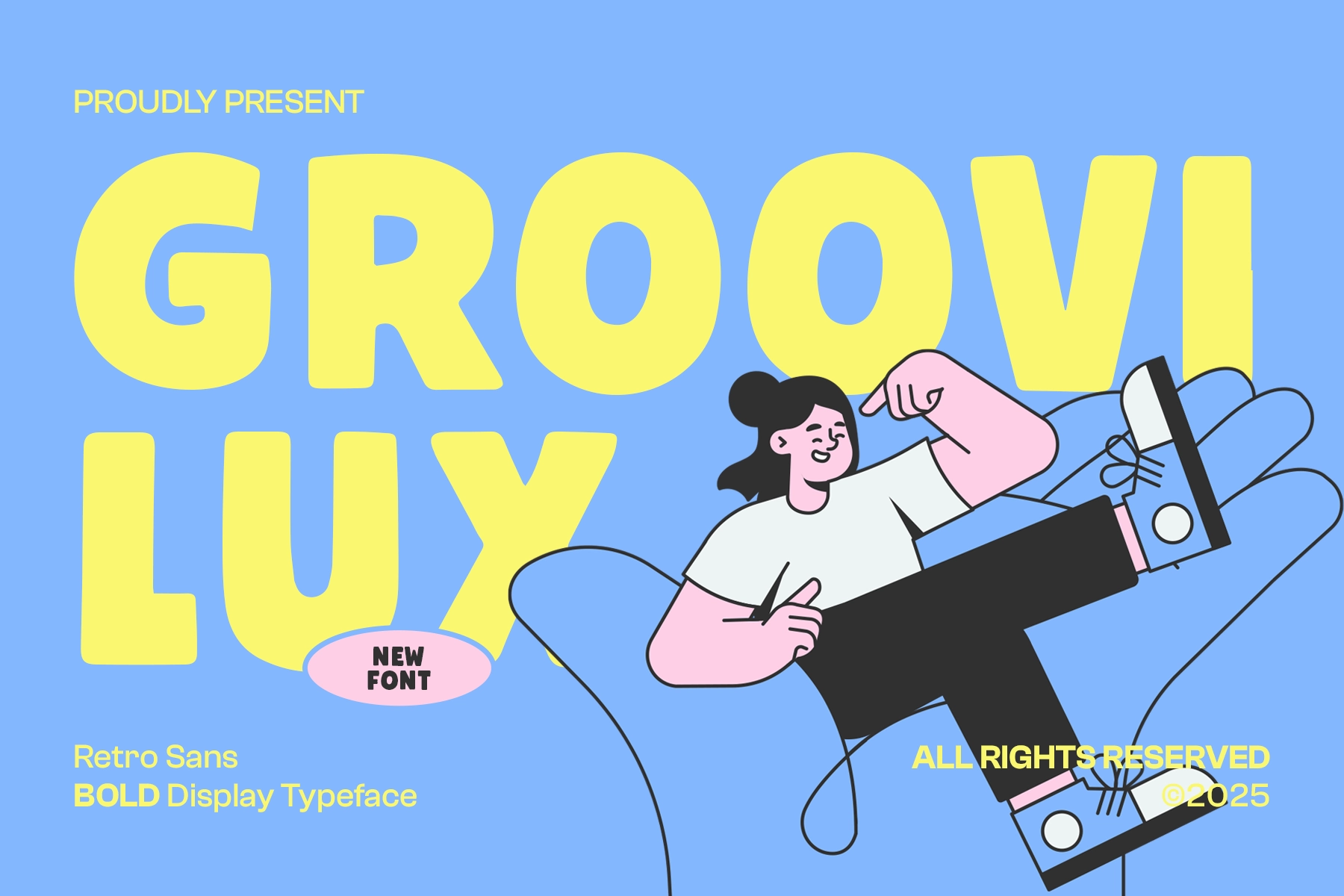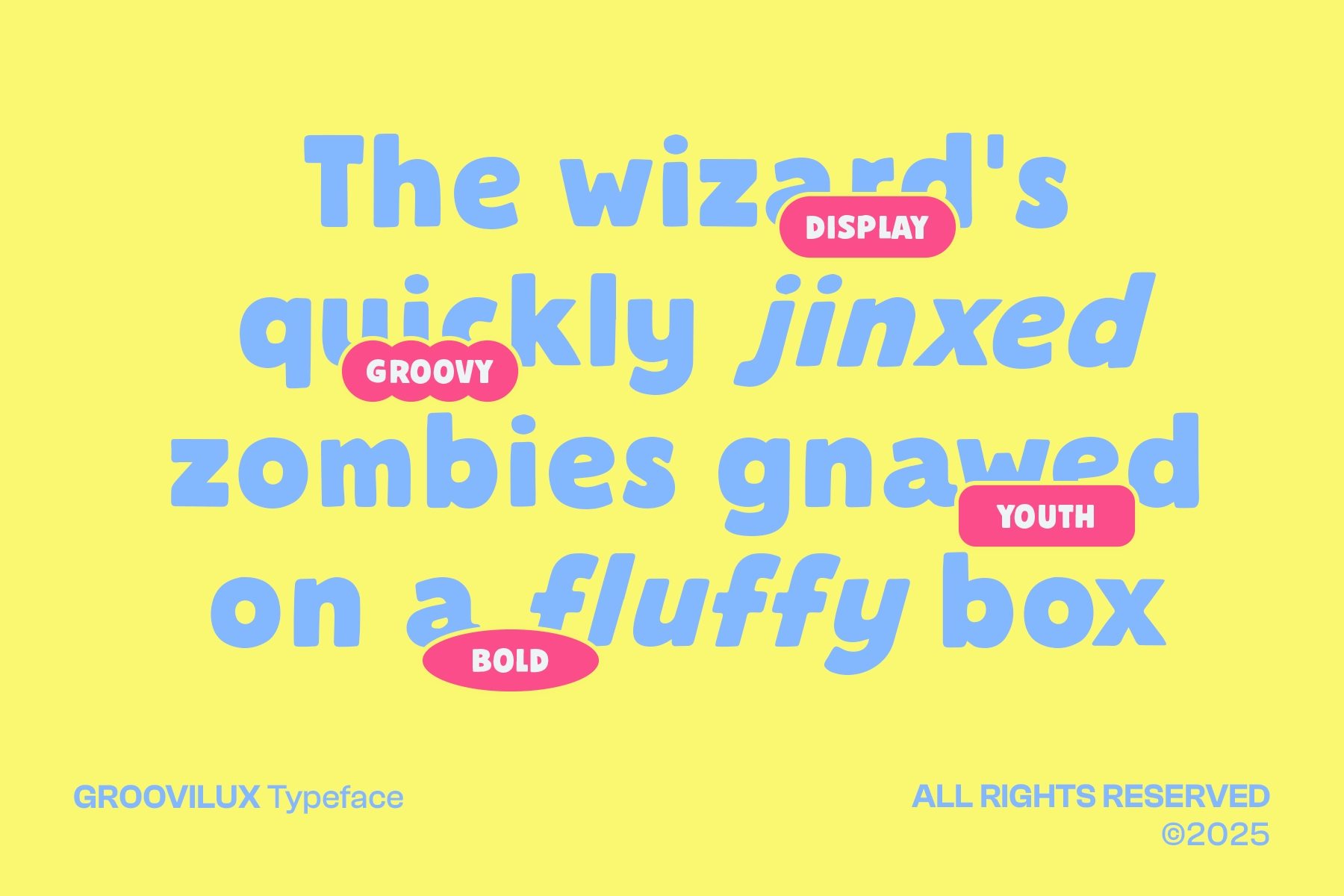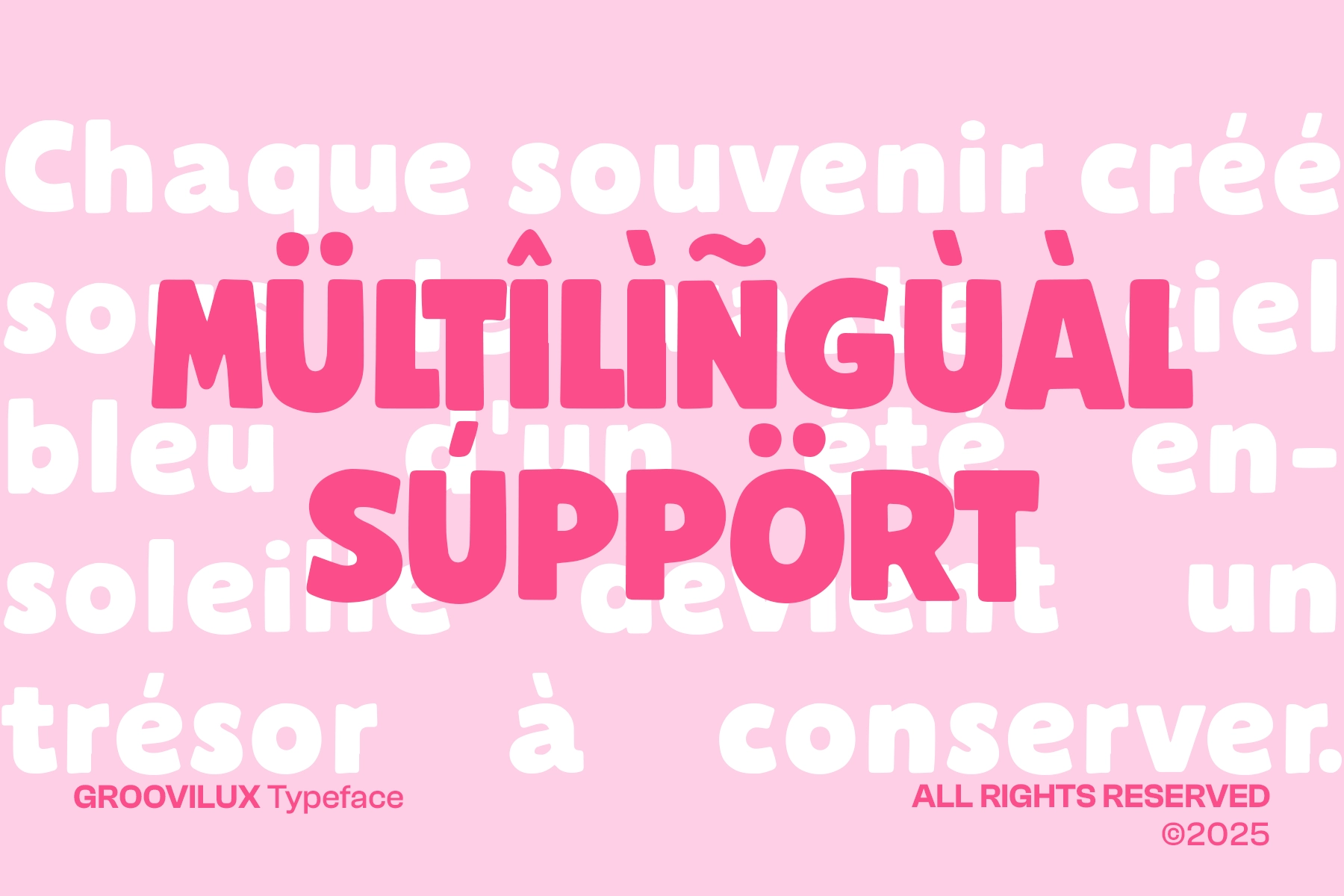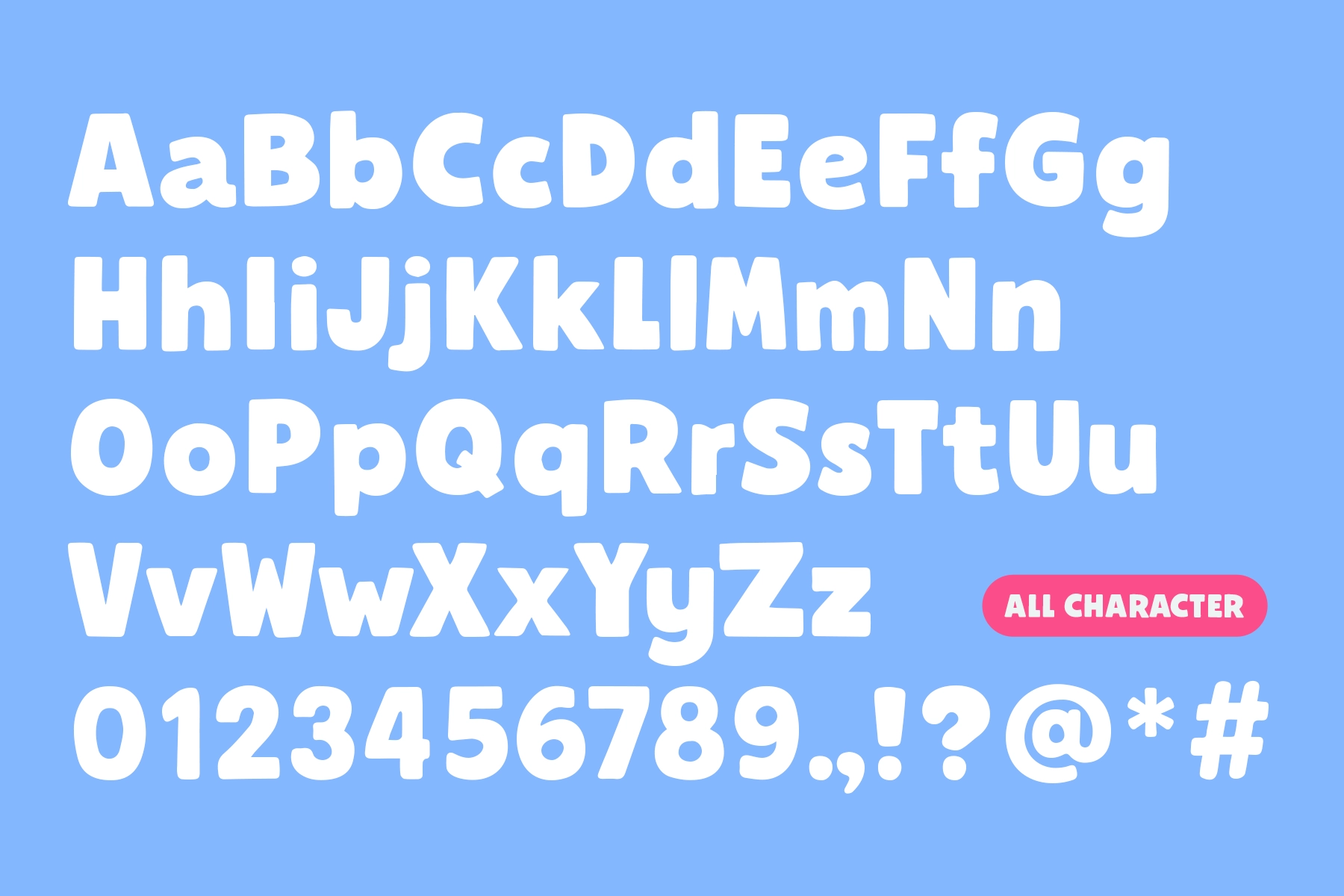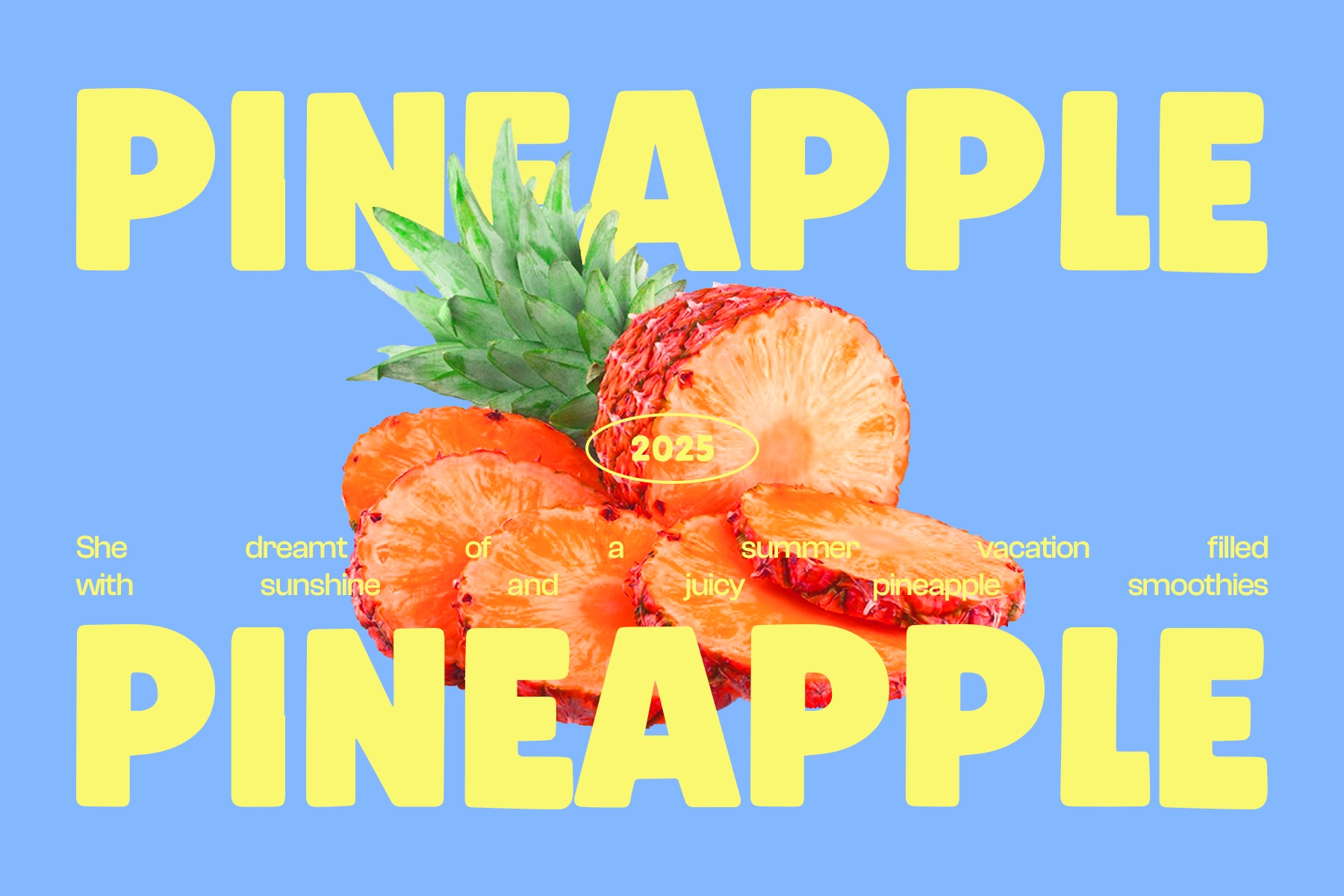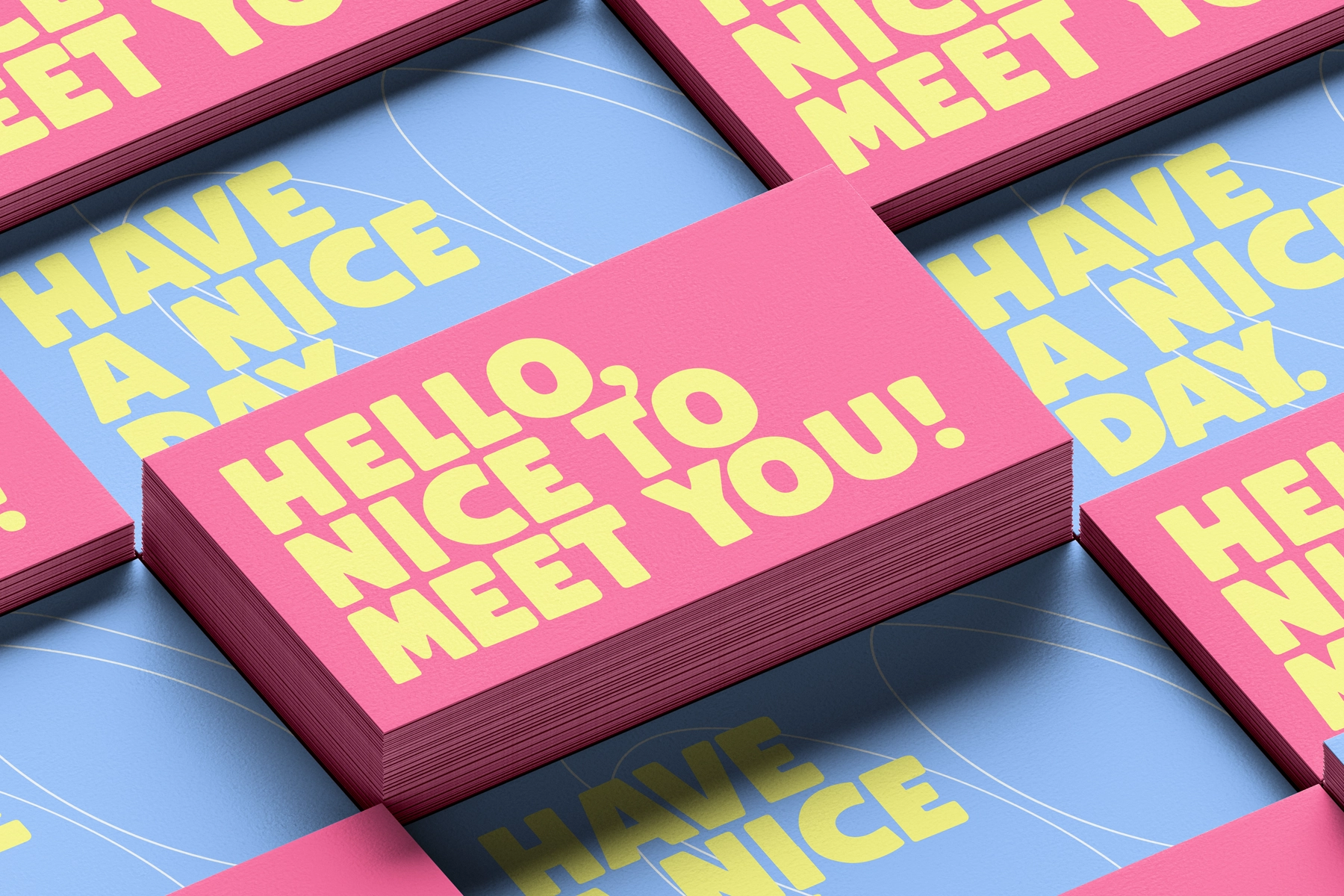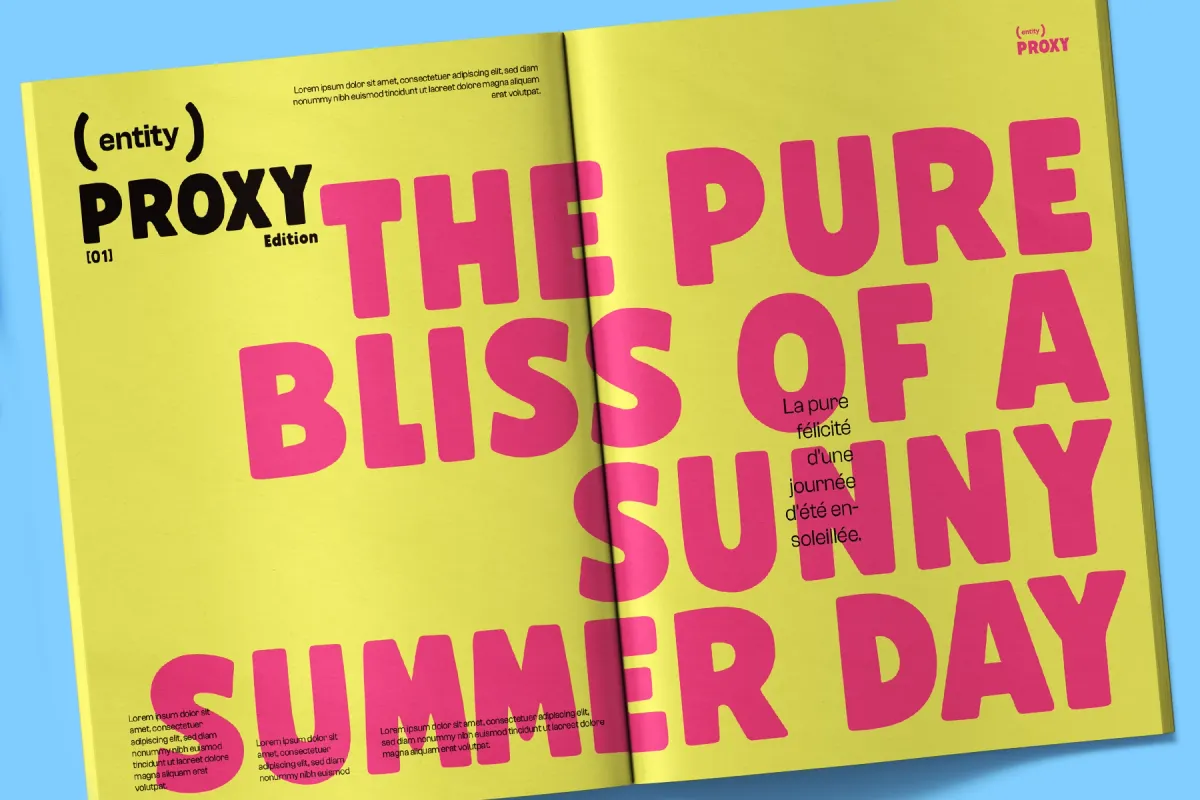
Groovilux - Retro Sans Bold Display Typeface
Groovilux – Retro Sans Bold Display Typeface is a playful bold display font inspired by the vibrant spirit of 70s pop culture. With chunky curves, soft terminals, and rounded letterforms, it delivers a warm retro personality while still feeling fresh and modern. Its bold structure and smooth shapes create a friendly, energetic look that instantly attracts attention.
Perfect for posters, branding, packaging, children's books, social media graphics, and retro-themed designs, Groovilux brings joyful character and nostalgic charm to creative projects that want to feel bold, colorful, and full of personality.